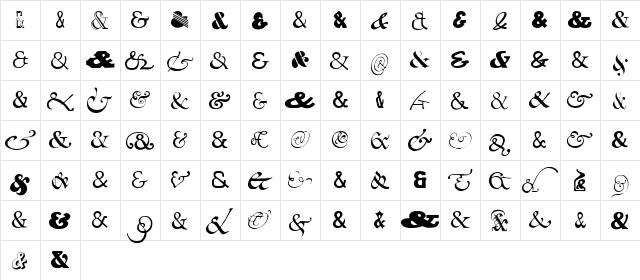
Ampersands Two Regular
Design Context for Ampersands Two Typeface
Ampersands Two is a composed and adaptable typeface that performs quietly and consistently across a wide range of design contexts.